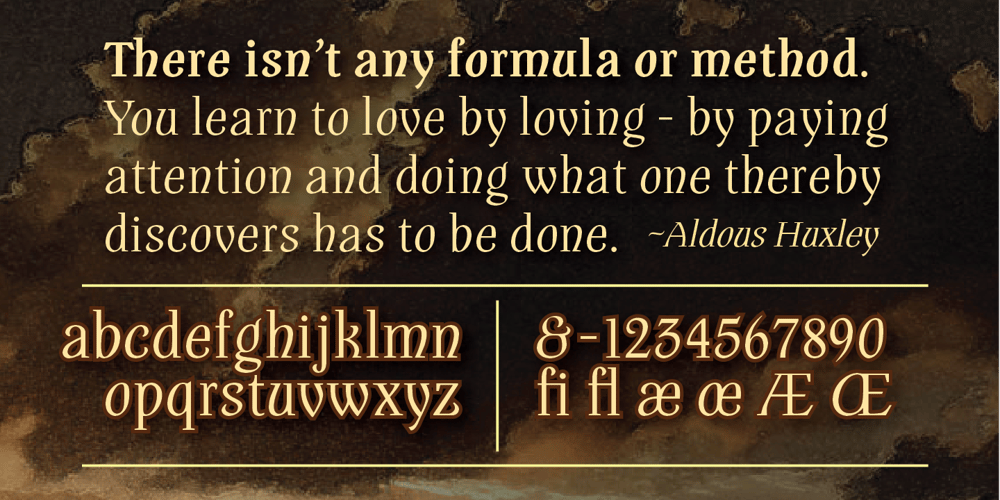
Interum Font Family was designed by John Nahmias and published by Jonahfonts. Interum contains 4 styles and family package options. This roman face is suitable for text and captions. Designed for the graphic designer that is looking for a new and different text font as well as captions. It can be closely kerned.